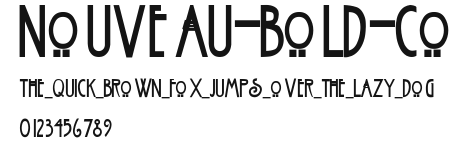
Nouveau-Bold-Co.ttf is a modern, elegant sans-serif font designed for ultimate readability and visual harmony. Perfect for branding, headlines, web design, and print materials.